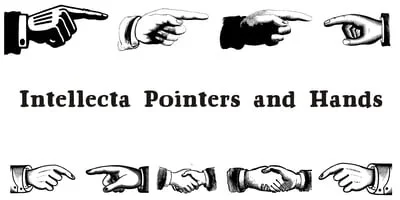
Intellecta Pointers And Hands Font
The Intellecta Pointers And Hands Font is a unique and incredibly practical dingbat font, specifically designed to provide a comprehensive collection of diverse pointing hands, arrows, and directional indicators, often with a vintage or classical flair. Imagine its varied and expressive symbols enhancing map designs for treasure hunts, adding clear guidance to antique-themed websites, or drawing attention to key details in historical documents and educational materials. Its specialized glyphs make it an excellent choice for cartography, interactive guides, game interfaces, and any design where clear, concise, and professional directional or illustrative graphics are paramount. Whether you're aiming for a classic hand pointing the way, a stylized arrow, or a whimsical directional element, Intellecta Pointers And Hands Font delivers with its wide range of options, ensuring your visuals are both functional and aesthetically appropriate.
What makes Intellecta Pointers And Hands Font so exciting is its dedicated focus on a specific, highly useful set of visual cues: pointers and hands. In design, these elements are crucial for guiding the viewer's eye and conveying interaction or emphasis. This font offers designers a curated library of high-quality, easily scalable vector symbols, eliminating the need to search for or create individual graphics. It’s more than just a typeface; it’s a specialized toolkit that streamlines the design process for anyone working with user interfaces, maps, presentations, or any content requiring clear directional or indicative graphics. Its ability to provide precise, vector-based symbols ensures perfect scaling and crisp reproduction, making it an invaluable asset for professionals and enthusiasts alike.
The Intellecta Pointers And Hands Font family, as an "assortment" or dingbat font, is structured to offer a wide variety of symbols rather than traditional alphabetical characters and weights. Its "family" is typically defined by the comprehensive nature of its single specialized set. You would find:
Diverse Pointing Hand Glyphs: Each character slot (e.g., accessed by typing A, B, C, etc., or by glyph panel) corresponds to a different style of pointing hand, ranging from elegant and classic to more stylized or whimsical.
Various Arrow and Directional Indicators: Beyond just hands, the assortment often includes a multitude of arrow styles – simple, ornate, curved, straight – suitable for various directional needs.
Thematic Variations: Some designs might lean into a vintage, steampunk, or historical aesthetic, depending on the font's overall design philosophy, providing context-specific options.
Vector Scalability: As a font, all the included pointers and hands are vector graphics, meaning they can be scaled to any size without loss of quality, unlike raster images.
This single, yet rich, set of symbols provides designers with immense flexibility to choose the perfect directional element to complement their designs, ensuring visual consistency and professional quality throughout.